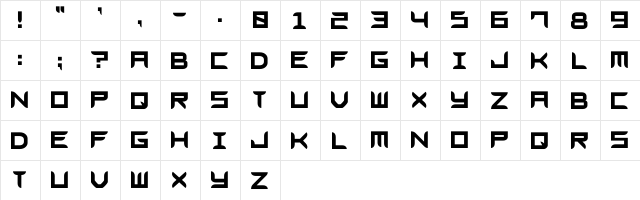
Blades GF Free Regular
Design Context for Blades GF Free Typeface
Blades GF Free is a composed and adaptable typeface that performs quietly and consistently across a wide range of design contexts.